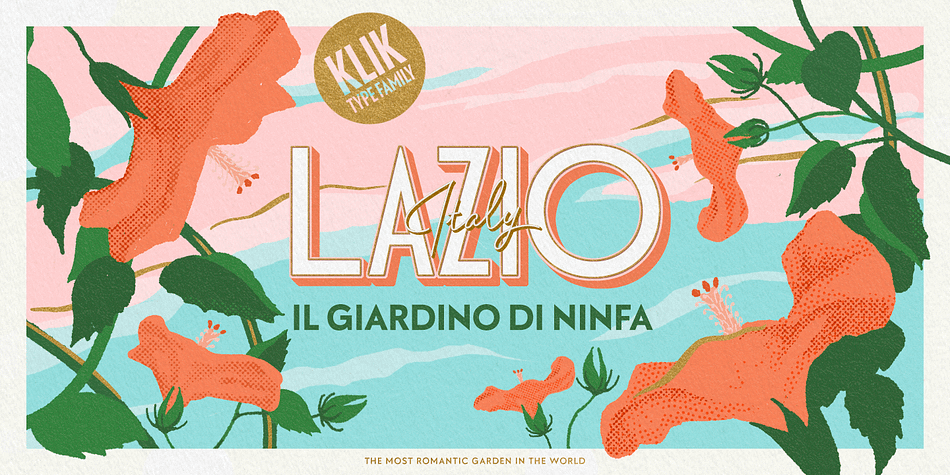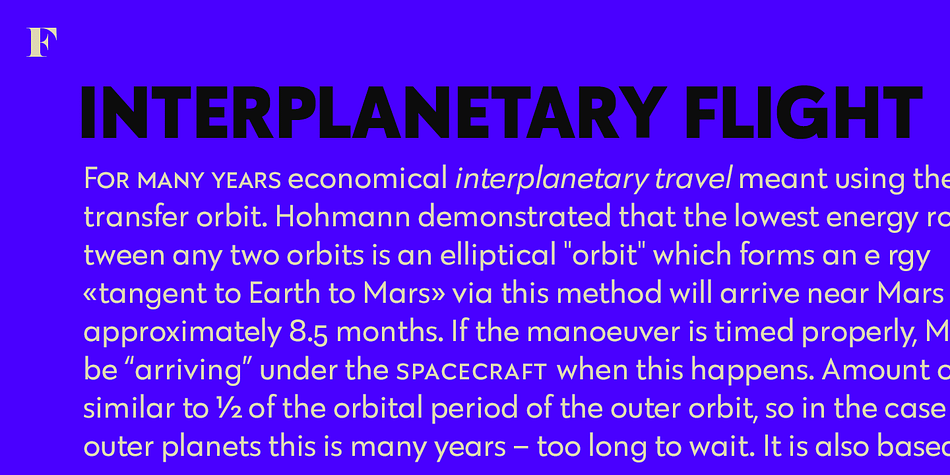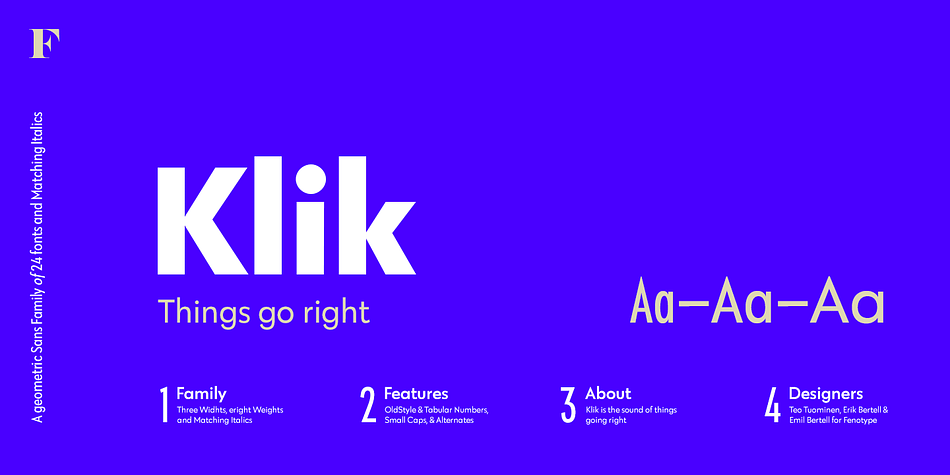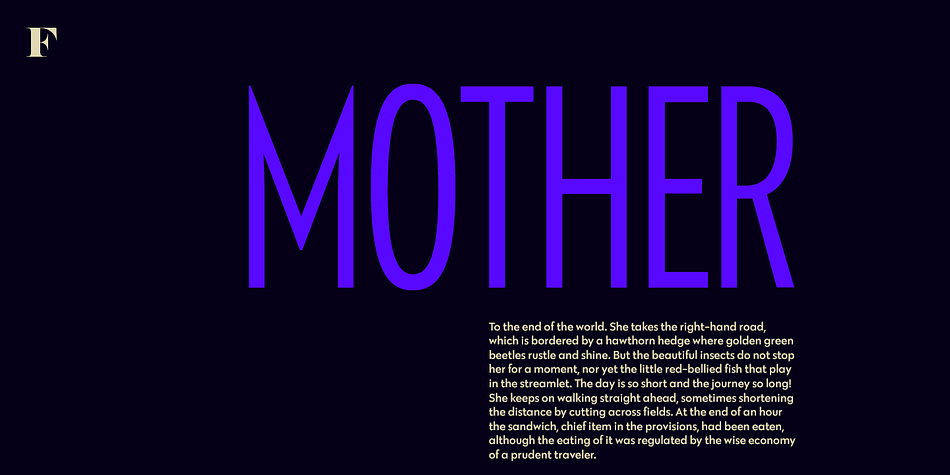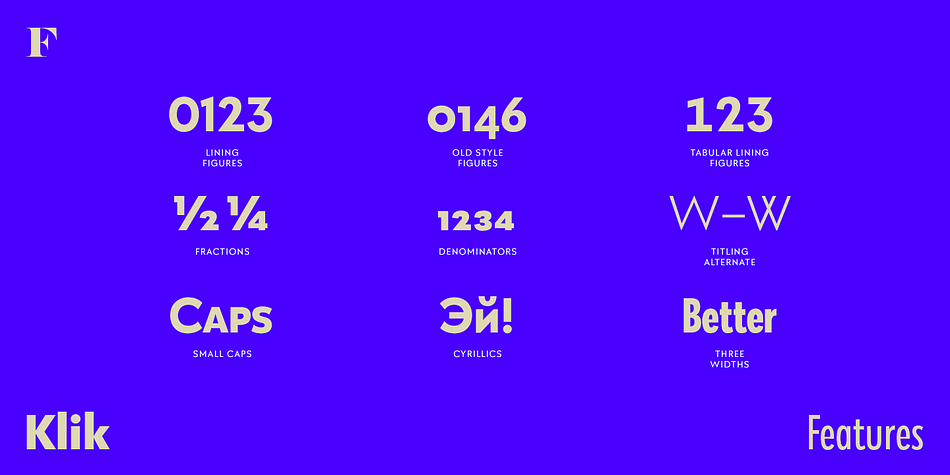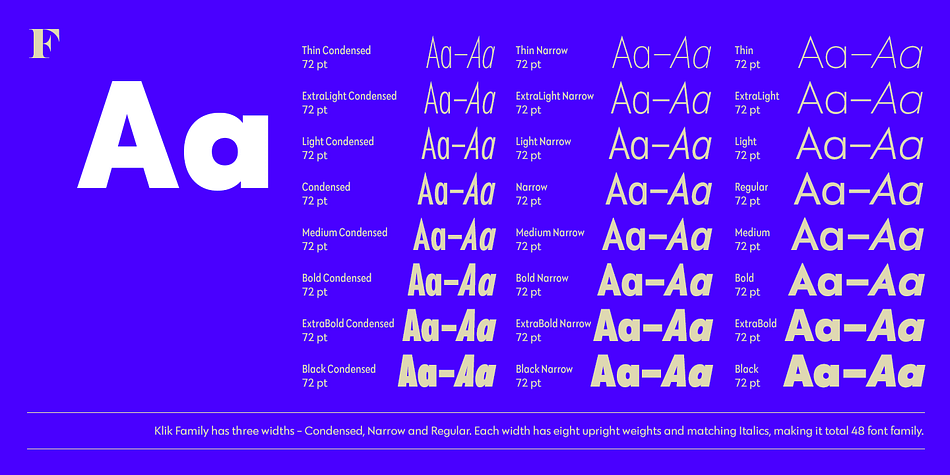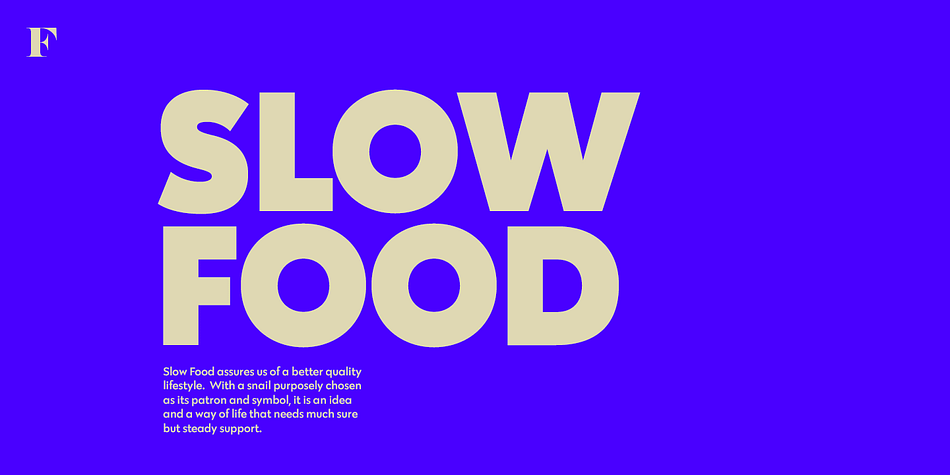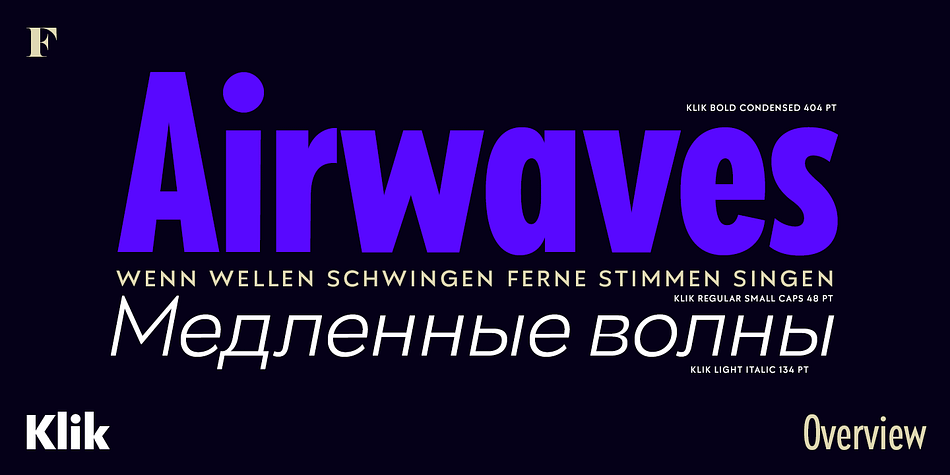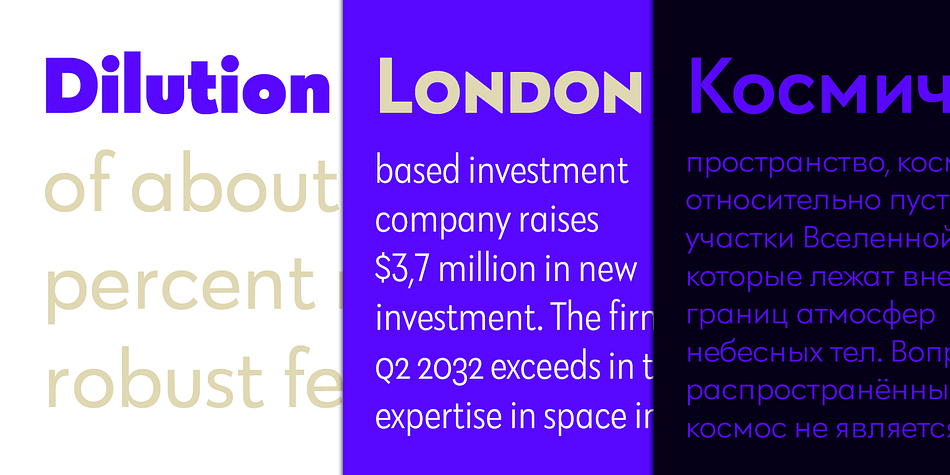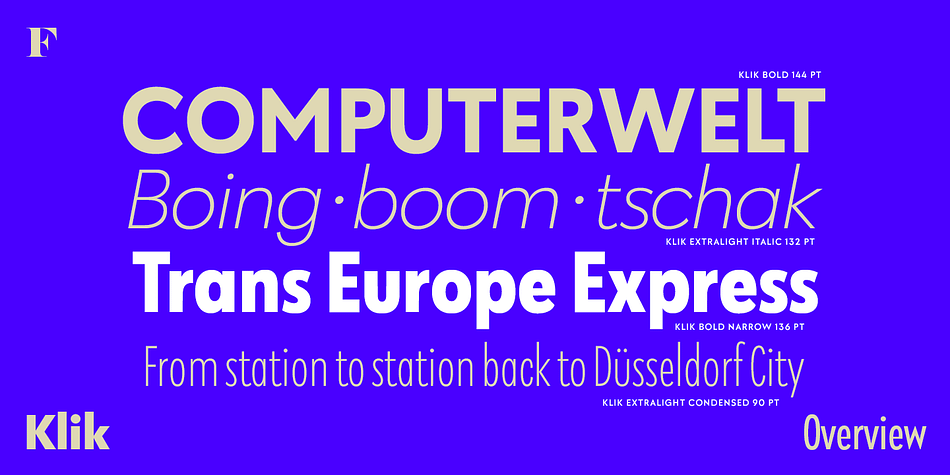
Designed by Erik Bertell, Emil Bertell and Teo Tuominen, Klik is a sans serif font family. This typeface has forty-eight styles and was published by Fenotype.
Klik is a universal sans serif family – clean and timeless. Both iconic and legible, Klik is suited to cover many needs from brand identities to editorial design, advertising, logos and beyond. Cyrillic characters are featured and a wide range of languages is supported.
Open Type features are abundant – from built-in small capitals to various numeral styles (linear and old style; tabular and proportional, subscript and superscript).
Klik comes in three widths – each featuring eight weights and corresponding italics.
| Style | Sans Serif |
| Designers | Erik Jarl Bertell, Emil Karl Bertell, Teo Tuominen |